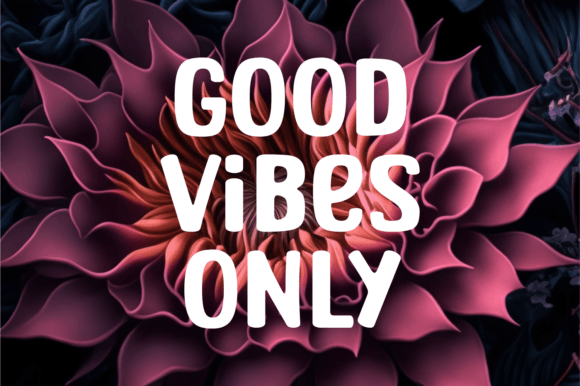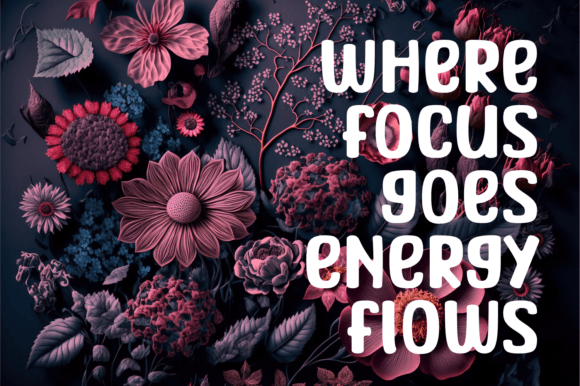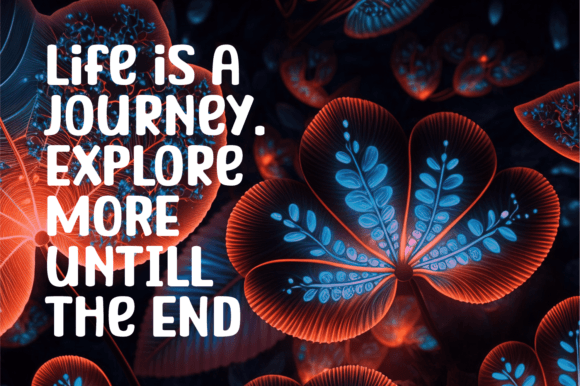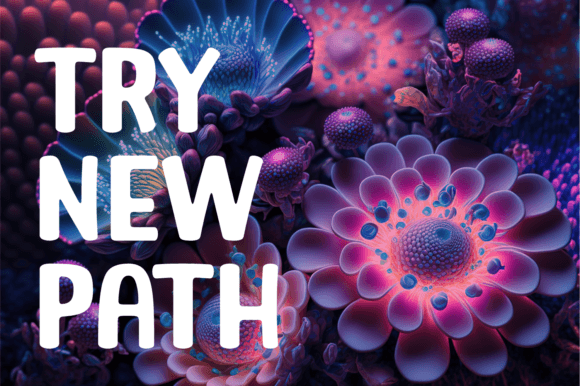
Famova Font: Elevate Your Designs with a Modern Handwritten Touch
In the world of digital design, typography plays a crucial role in conveying messages, expressing creativity, and capturing the audience’s attention. Among the myriad of fonts available, Famova Font stands out as a modern and attractive handwritten font that brings a natural flow and charming personality to any design project. Whether you’re a designer, crafter, or simply a DIY enthusiast, Famova Font is an excellent choice for adding a personal touch to your creations.
The Charm of Famova Font
Famova Font boasts a unique, handwritten aesthetic that exudes warmth and approachability. Its natural flow and fluid strokes give it an organic feel, reminiscent of handwritten text. This font is perfect for designs that require a personal and human touch, such as social media posts, posters, logos, and more. With Famova Font, you can add a dash of personality to your designs, making them more relatable and engaging to your audience.
Key Features of Famova Font
- Modern and Attractive: Famova Font features a modern and attractive design that’s sure to grab attention.
- Handwritten Style: Its handwritten style gives it a natural, organic feel that’s perfect for designs that require a personal touch.
- Natural Flow: The font’s natural flow and fluid strokes make it easy to read and visually appealing.
- Charming Personality: Famova Font has a charming personality that shines through in any design, making it perfect for creative projects.
Famova Font is an incredibly versatile font that can be used in a wide range of design projects, including:
- Social Media Posts: Add a personal touch to your social media posts and make them stand out from the crowd.
- Posters: Create eye-catching posters that grab attention and communicate your message effectively.
- Logos: Use Famova Font to create a unique and memorable logo that reflects your brand’s personality.
- Crafting Projects: Add a touch of elegance and sophistication to your crafting projects, such as handmade cards, invitations, and more.
Why Choose Famova Font?
With so many fonts available, why choose Famova Font? Here are a few compelling reasons:
- Unique Style: Famova Font offers a unique and distinctive style that’s sure to set your designs apart.
- Ease of Use: The font is easy to read and use, making it perfect for designs that require a personal touch.
- Flexibility: Famova Font can be used in a wide range of design projects, from digital designs to print materials.
- High-Quality: The font is of high quality, ensuring that your designs look professional and polished.
Tips for Using Famova Font Effectively
To get the most out of Famova Font, here are a few tips to keep in mind:
- Use it Sparingly: Use Famova Font sparingly to add emphasis and create visual interest in your designs.
- Pair it with Other Fonts: Pair Famova Font with other fonts to create a unique and visually appealing typography combination.
- Keep it Simple: Keep your design simple and clean to ensure that Famova Font takes center stage.
Famova Font is a modern and attractive handwritten font that’s perfect for designers, crafters, and DIY enthusiasts. Its natural flow, charming personality, and versatility make it an excellent choice for adding a personal touch to your designs. Whether you’re creating social media posts, posters, logos, or crafting projects, Famova Font is sure to elevate your designs and make them stand out from the crowd.